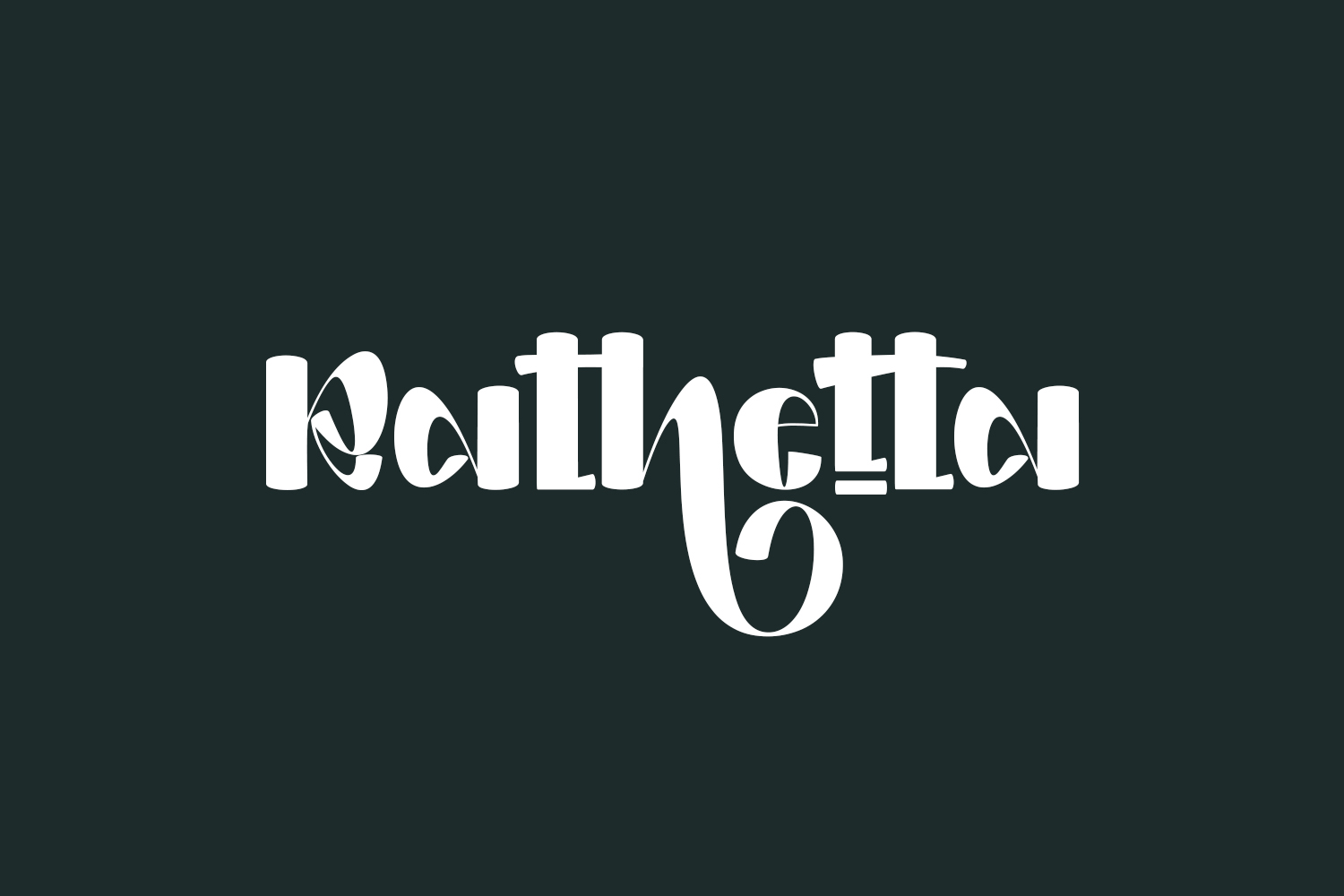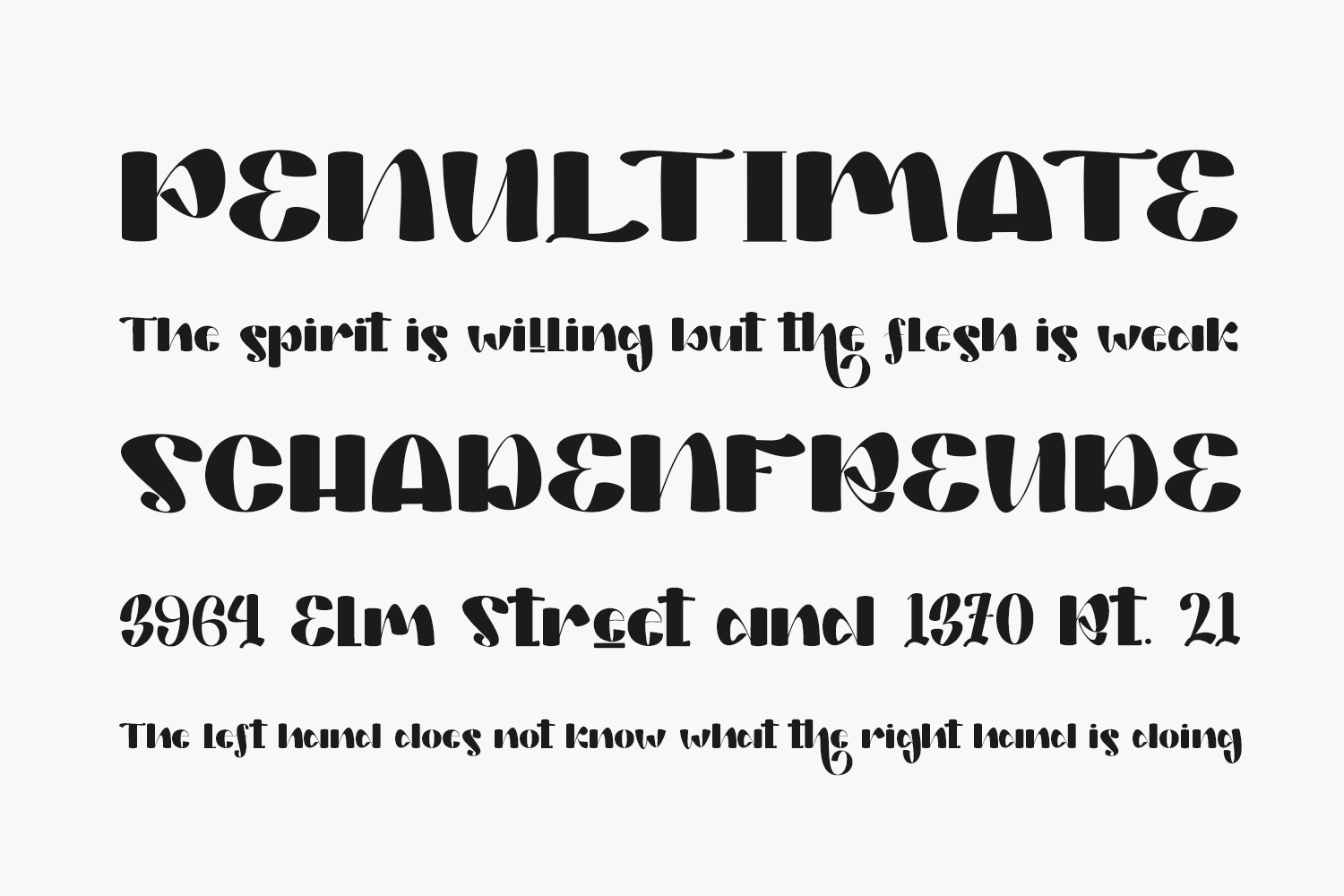
Welcome to the world of Rathetta Free Font – a gracefully crafted, sophisticated, and stunning display font. With its sheer elegance, Rathetta perfectly complements a wide array of design projects, logos, greeting cards, posters, invitations, and branding endeavors. Embrace the allure of Rathetta to elevate your creations to a whole new level of beauty and charm. Rathetta Free Font is free for personal use only. Please purchase the full version for commercial use.
Designed by Harjuno Kristanto